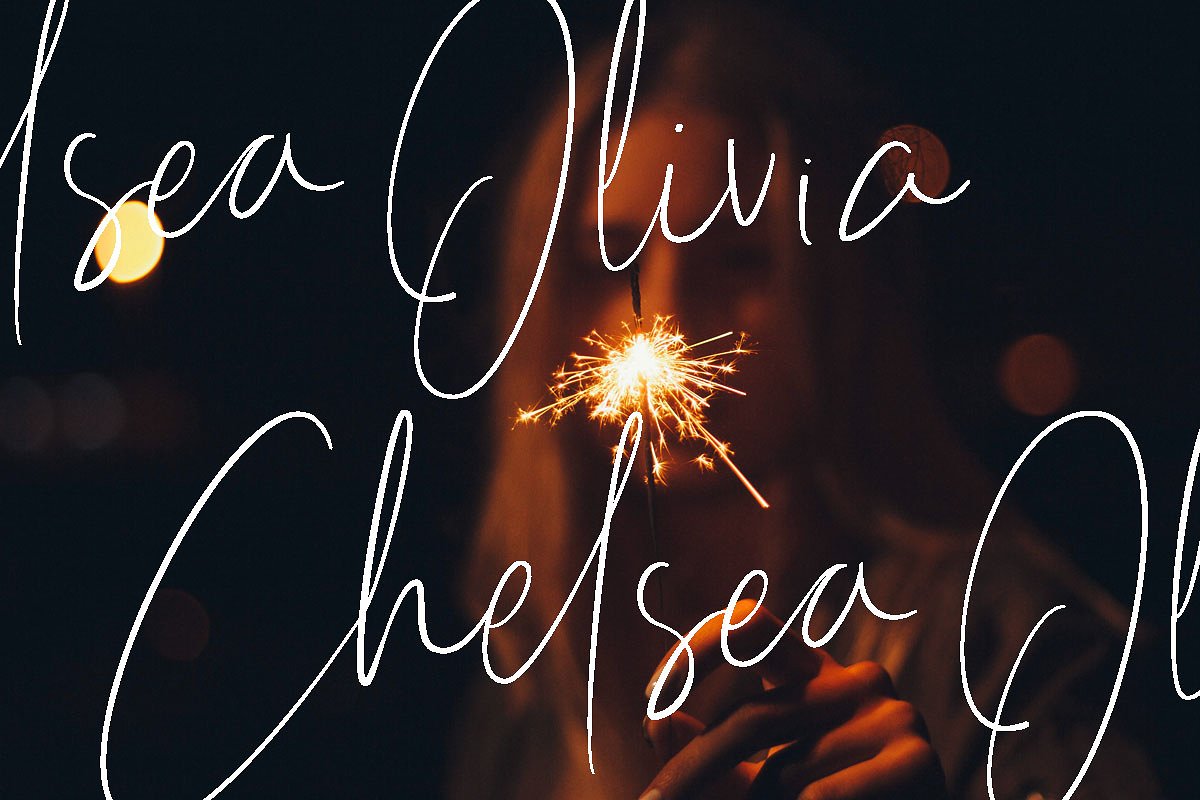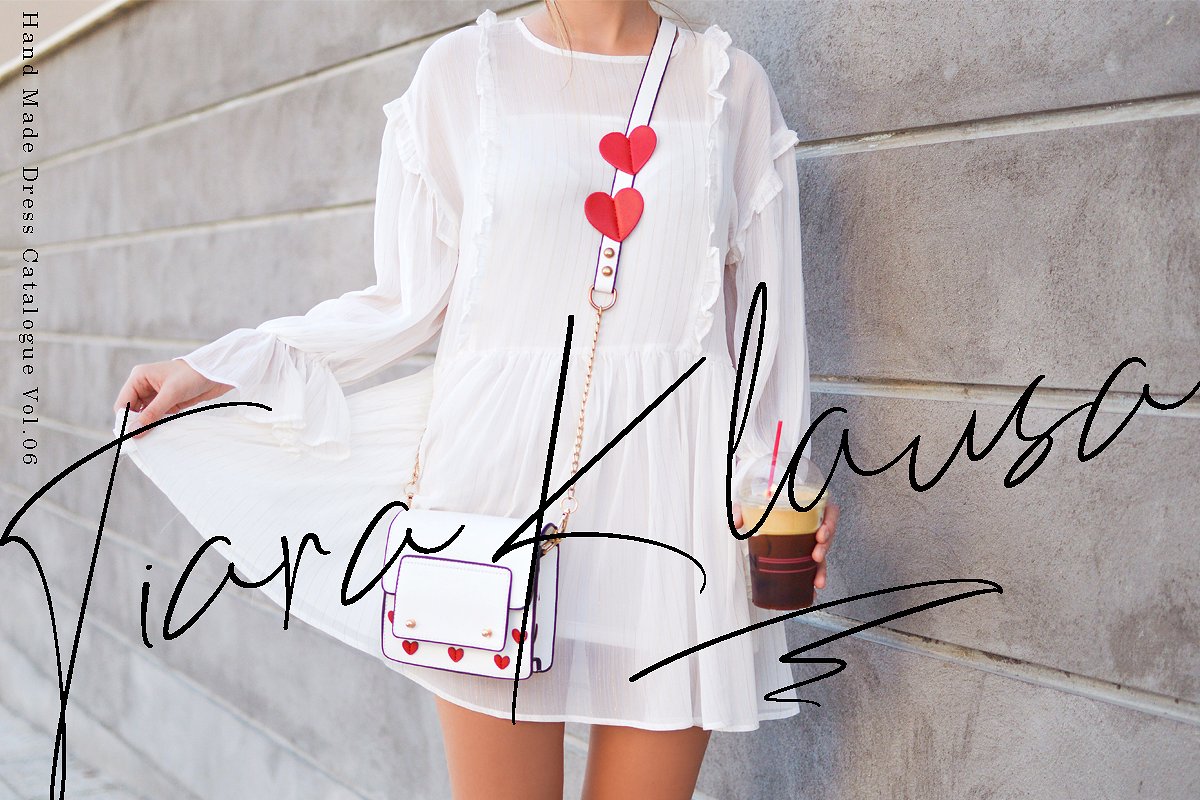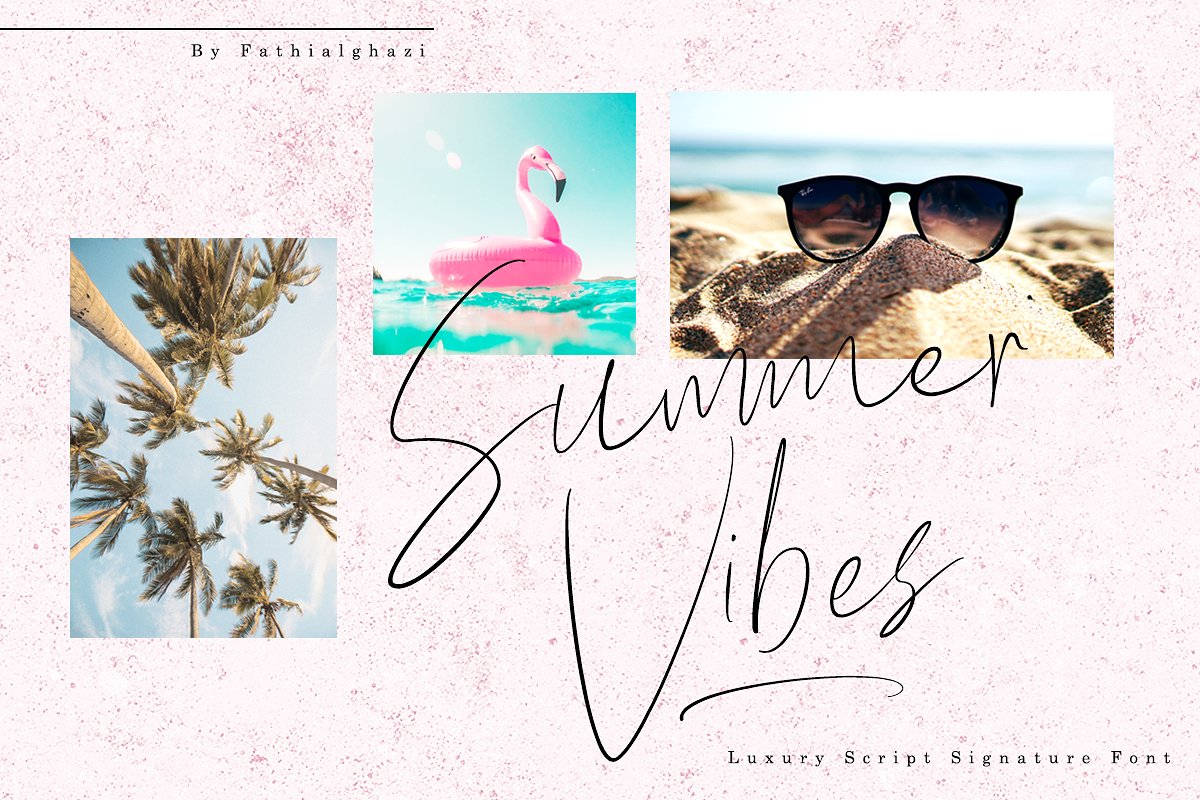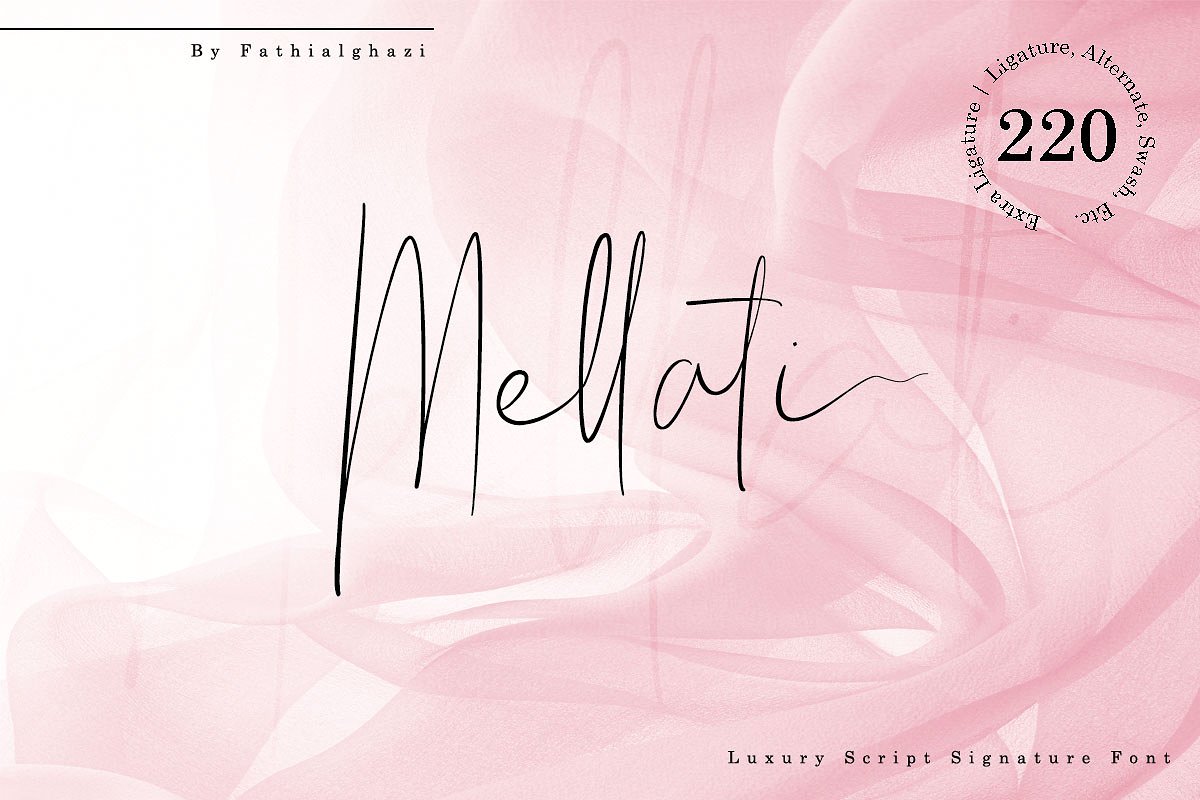
Mellati Signature Font
Hello Guys! This is signature handwritten, easy to use, naturally from handmade. Come with unique character, with vibe of real lettering make the a lot of ligature, alternated make the signature style perfect. Introducing Mellati Font. Minted is signature handwritten, easy to use, naturally from handmade. Come with unique character, with vibe of real lettering make the a lot of ligature, alternated make the signature style perfect. This is perferct for branding, logo, headline, save the date ideas, Upscale, and handcrafted concept.